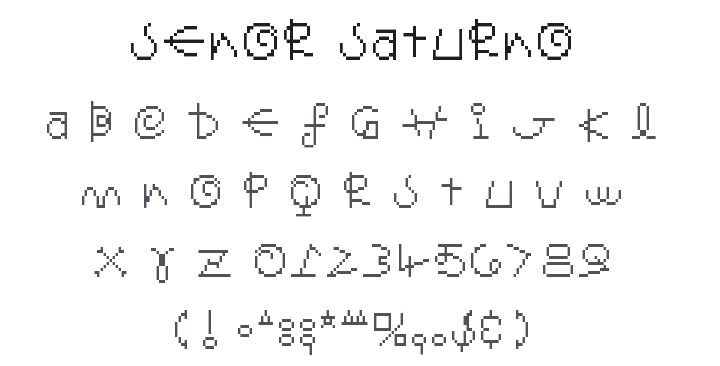
Senor Saturno Font
About Senor Saturno
TrueType conversion of font used to render the dialogue of those cuddly little alien creatures named Mr. Saturn in Earthbound, a cult classic RPG for Super Nintendo.